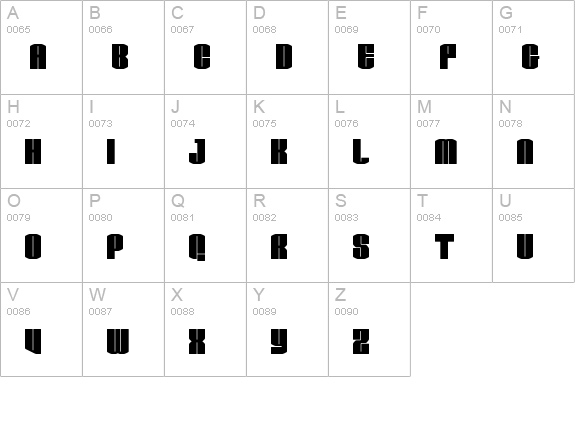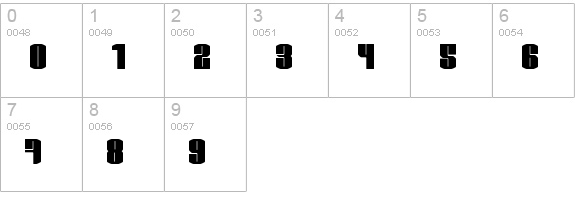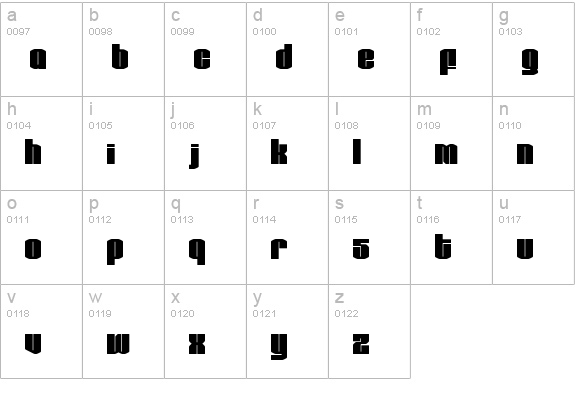
Introducing Test1 Font, a stunning typeface that embodies elegance, versatility, and creativity. With its sleek and modern design, Test1 Font is the perfect choice for any project, whether it's designing a logo, creating eye-catching headlines, or adding a touch of sophistication to your website. Featuring a unique blend of clean lines and subtle curves, Test1 Font effortlessly captures attention and leaves a lasting impression. Its wide range of glyphs and characters ensures seamless compatibility with various languages and special symbols, making it a go-to font for international projects. But what truly sets Test1 Font apart is its accessibility. As a free font, it offers both professional and aspiring designers the opportunity to enhance their creations without any financial constraints. Whether you're a seasoned graphic designer or a student exploring the world of typography, Test1 Font is freely available to download at FontsMarket.com. So why wait? Elevate your design game with Test1 Font and unlock a world of possibilities. Download it today and experience the beauty and functionality of this remarkable typeface.